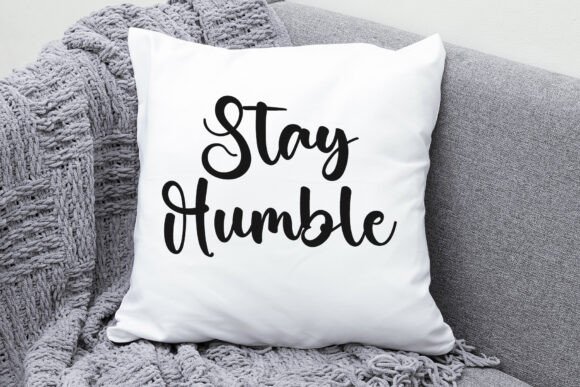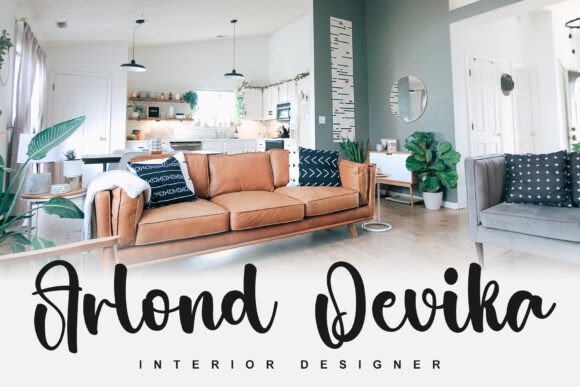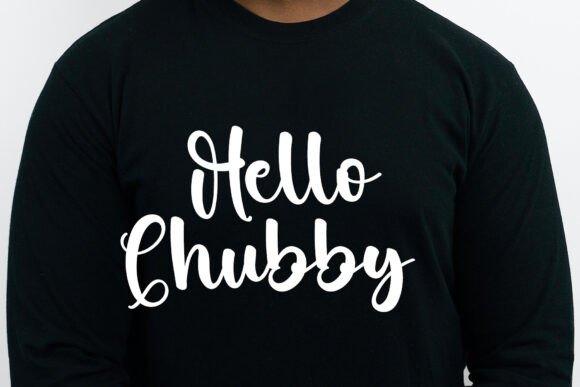
History Graduation Font
History Graduation– A Playful & Expressive Creative Script Font Meet History Graduation – a charming handwritten script font that brings warmth, personality, and creativity to your designs. With its lively, flowing strokes and organic feel, this font is perfect for projects that demand a Creative Script Font with a personal touch. Whether you’re designing a cozy café logo, a heartfelt greeting card, or playful product labels, History Graduation delivers a whimsical yet stylish flair. Let your creativity shine with this unique script handwriting font!